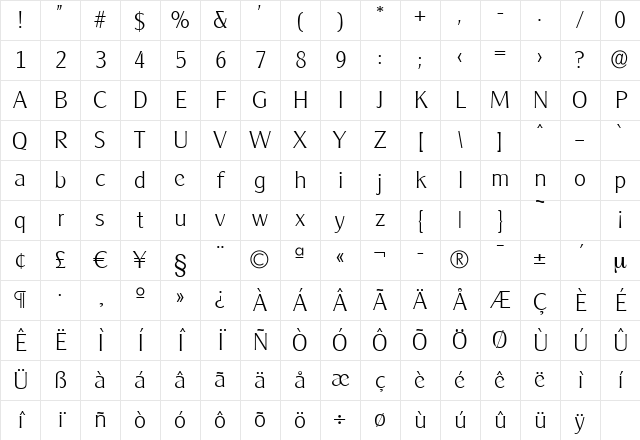
AlexanderBecker-ExtraLight Regular
AlexanderBecker-ExtraLight Family
Complete AlexanderBecker-ExtraLight Regular glyph index. Displaying only characters natively supported by AlexanderBecker-ExtraLight Regular font.
Design Context for AlexanderBecker-ExtraLight
AlexanderBecker-ExtraLight is a composed and adaptable typeface that performs quietly and consistently across a wide range of design contexts. Its slender proportions lend an understated elegance to any composition.